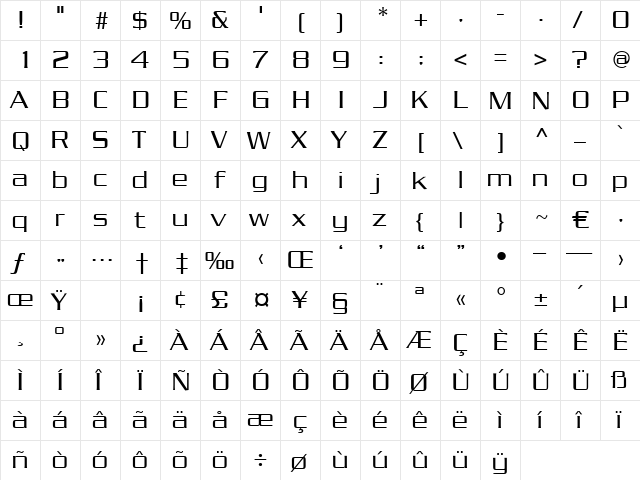
Sekunda Regular
Design Context for Sekunda Typeface
Sekunda offers clean, dependable letterforms without strong stylistic allegiance, making it a practical choice for designers who need flexibility.
Pro Tip: Use Sekunda in both headline and body roles to test its range before committing to a single application.